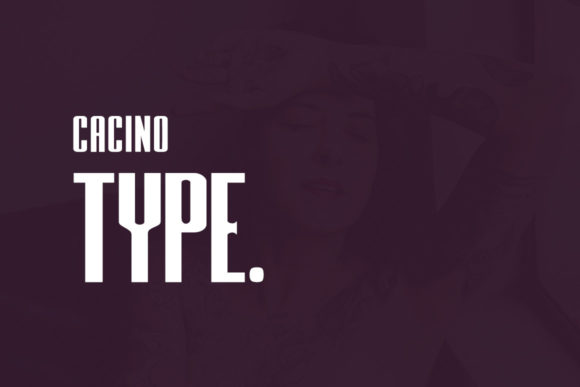
I still remember the frustration of working on a project, pouring my heart and soul into every detail, only to get stuck on one thing: the font. My client wanted something modern, sleek, and eye-catching, but I just couldn’t seem to find the right fit. That was until I stumbled upon the Cacino Font ✨. A modern display font that effortlessly balances minimalism with style, making it perfect for headlines, paragraphs, notes, advertisements, and so much more.
An Honest Review of Cacino Font
- ✨ Modern and sleek design: Cacino Font is perfect for designers who want to give their projects a fresh, contemporary look.
- ✅ Ease of use: The font is incredibly easy to read, even at smaller sizes, making it versatile for various design applications.
- 💡 OpenType features: Cacino Font comes with a range of OpenType features, including stylistic alternates and glyphs, giving designers plenty of creative options.
While Cacino Font is an excellent choice for many design projects, there are a few things to keep in mind ⚠️:
- 🤔 Limited suitability for body text: Due to its modern and sleek design, Cacino Font may not be the best choice for lengthy body text. It’s better suited for headlines, titles, and short paragraphs.
- ⚠️ Requires careful kerning: As with any font, careful attention to kerning is necessary to ensure that the text looks professional and polished.
The Backstory of Cacino Font
Cacino Font was designed with the modern designer in mind. Its creator, a talented typographer, aimed to craft a font that would effortlessly balance style with readability. The result is a versatile font that’s perfect for a wide range of design applications.
Q: What is Cacino Font best suited for?
A: Cacino Font is best suited for headlines, titles, short paragraphs, and other display text. Its modern and sleek design makes it perfect for a wide range of design applications.
Q: Is Cacino Font easy to read?
A: Yes, Cacino Font is designed to be easy to read, even at smaller sizes. However, it’s best suited for short paragraphs and display text rather than lengthy body text.